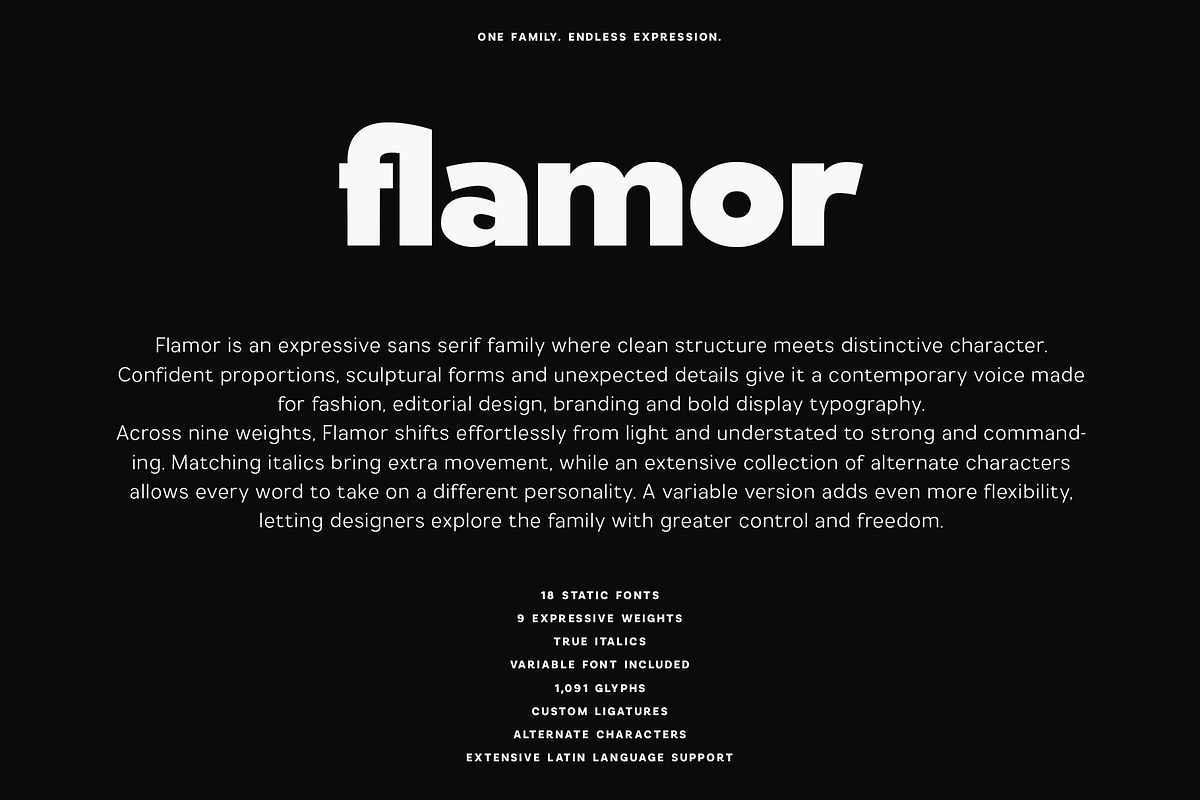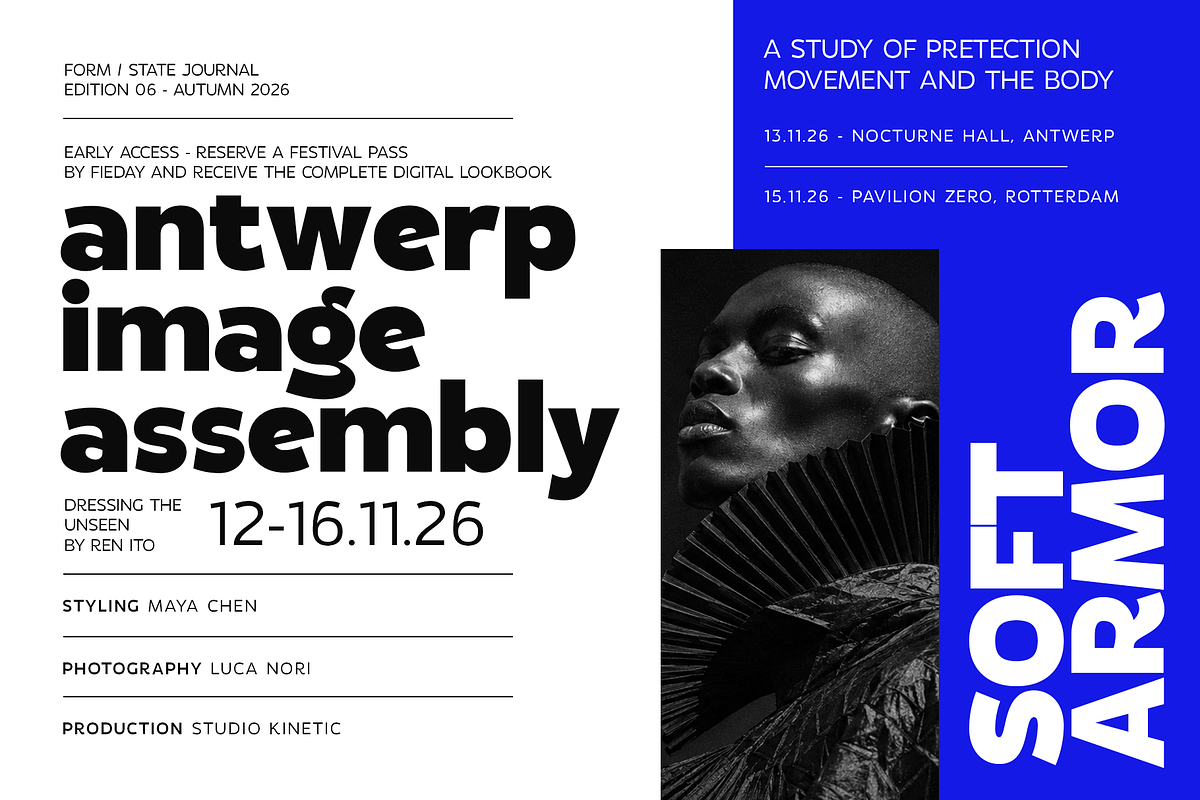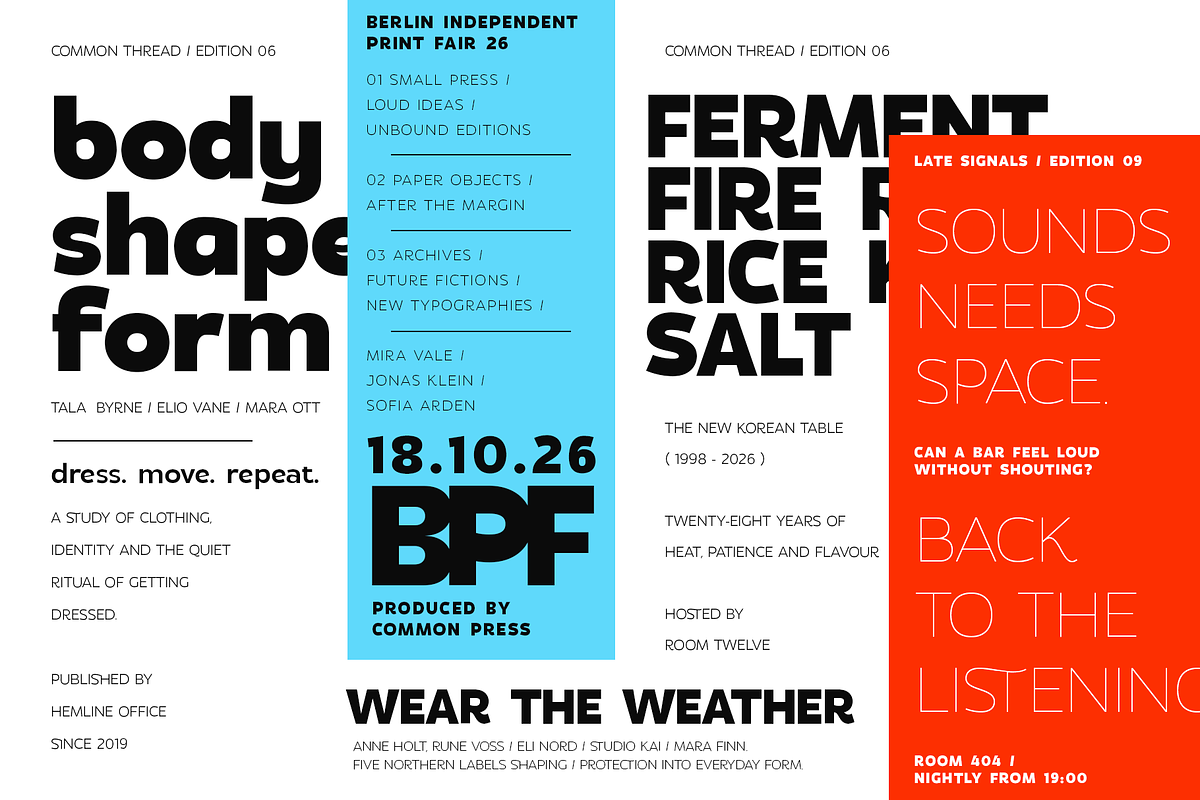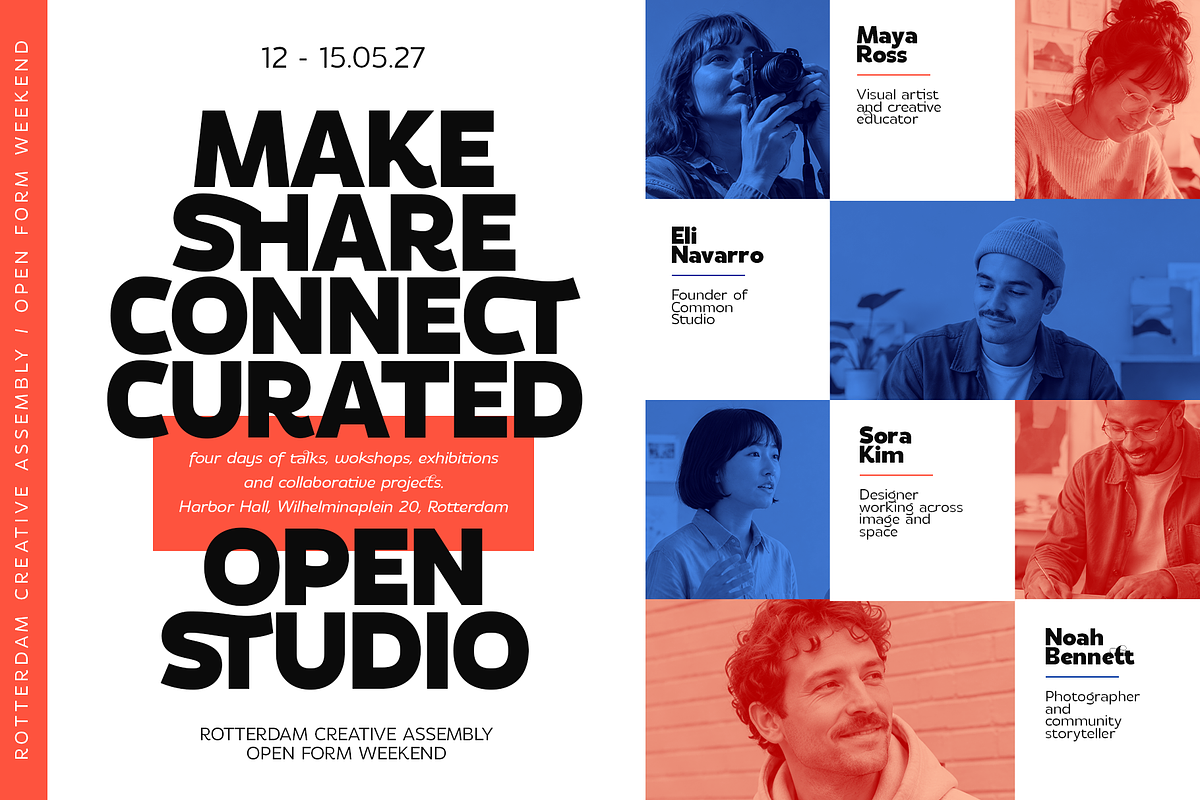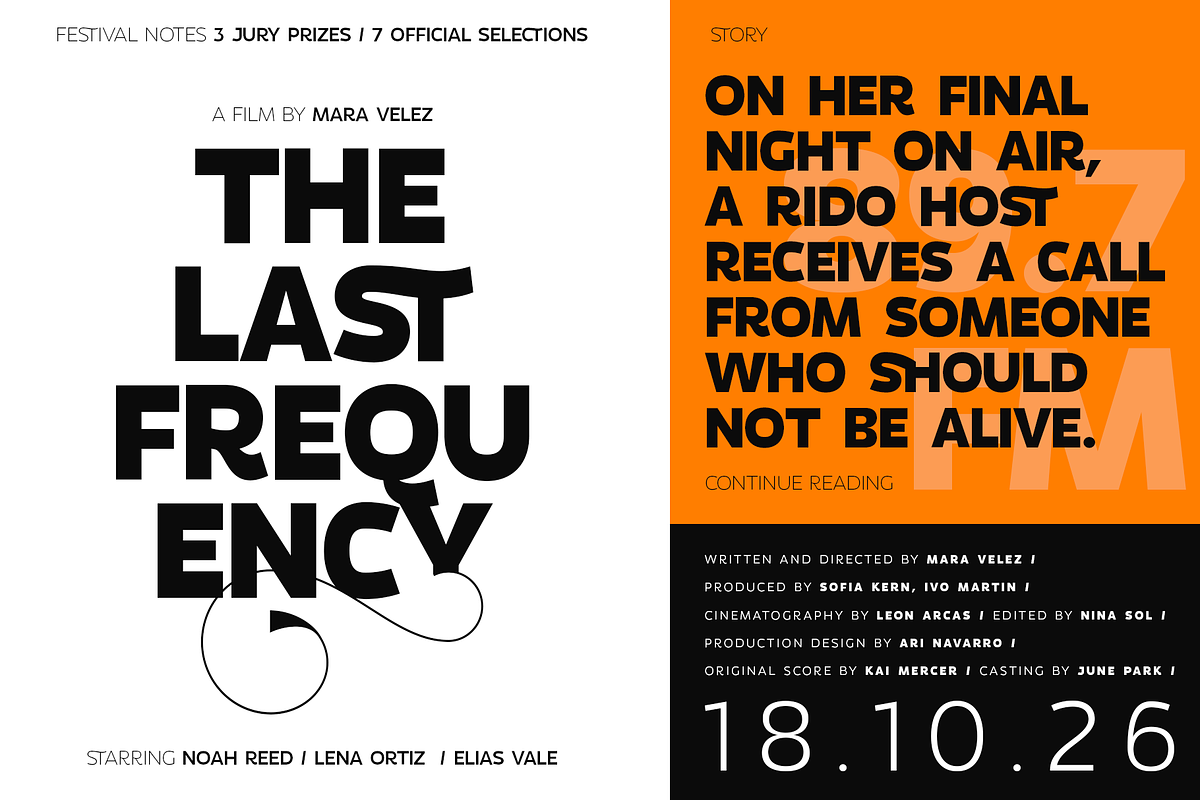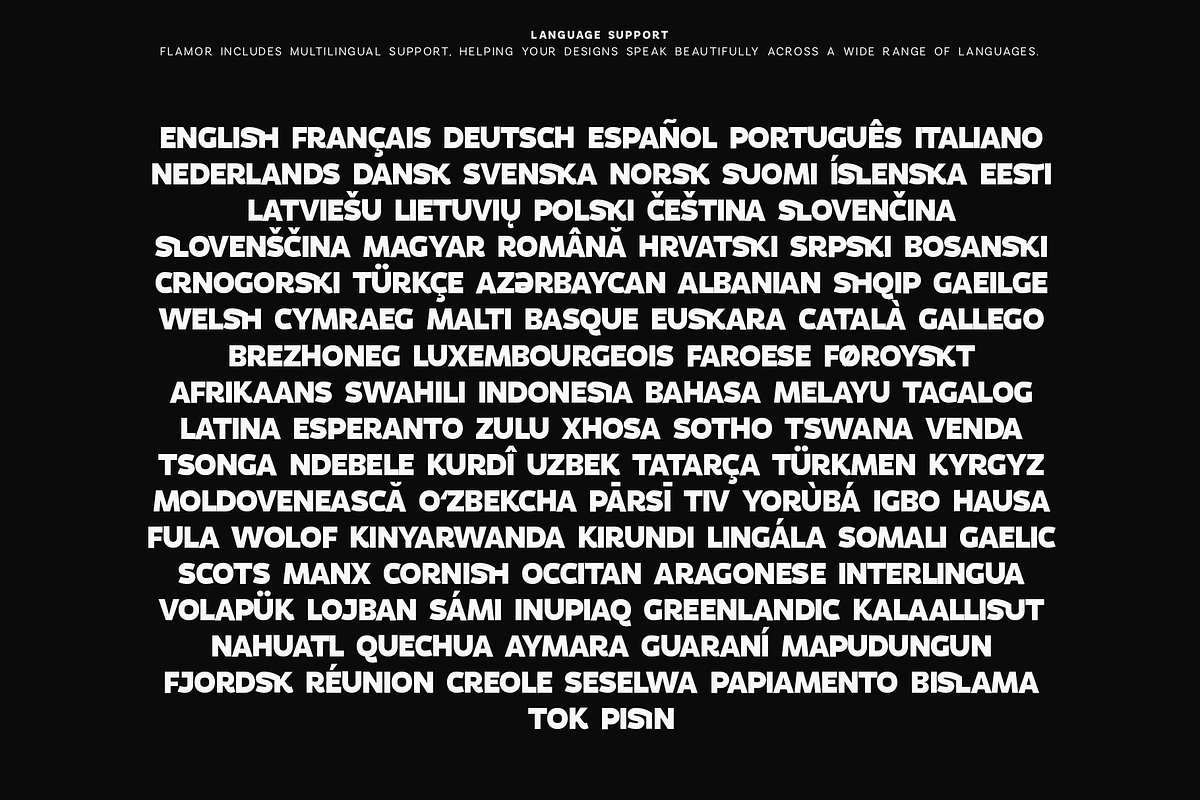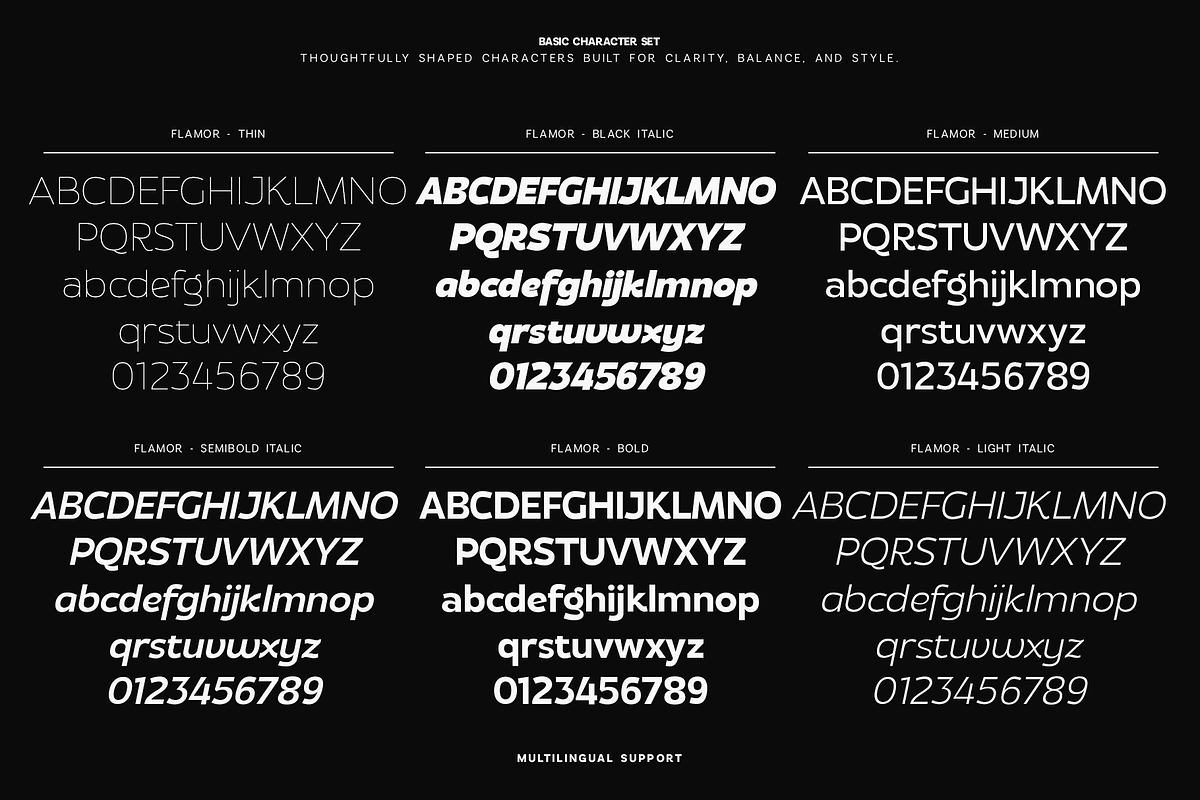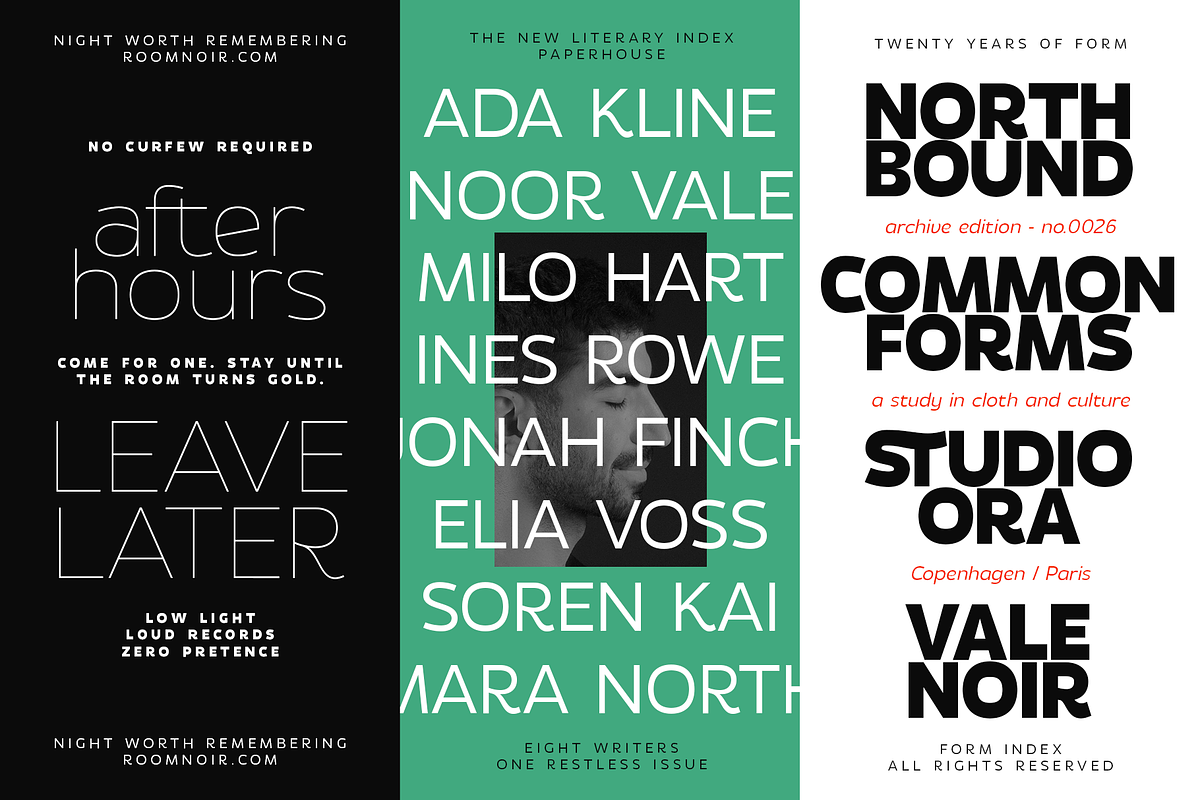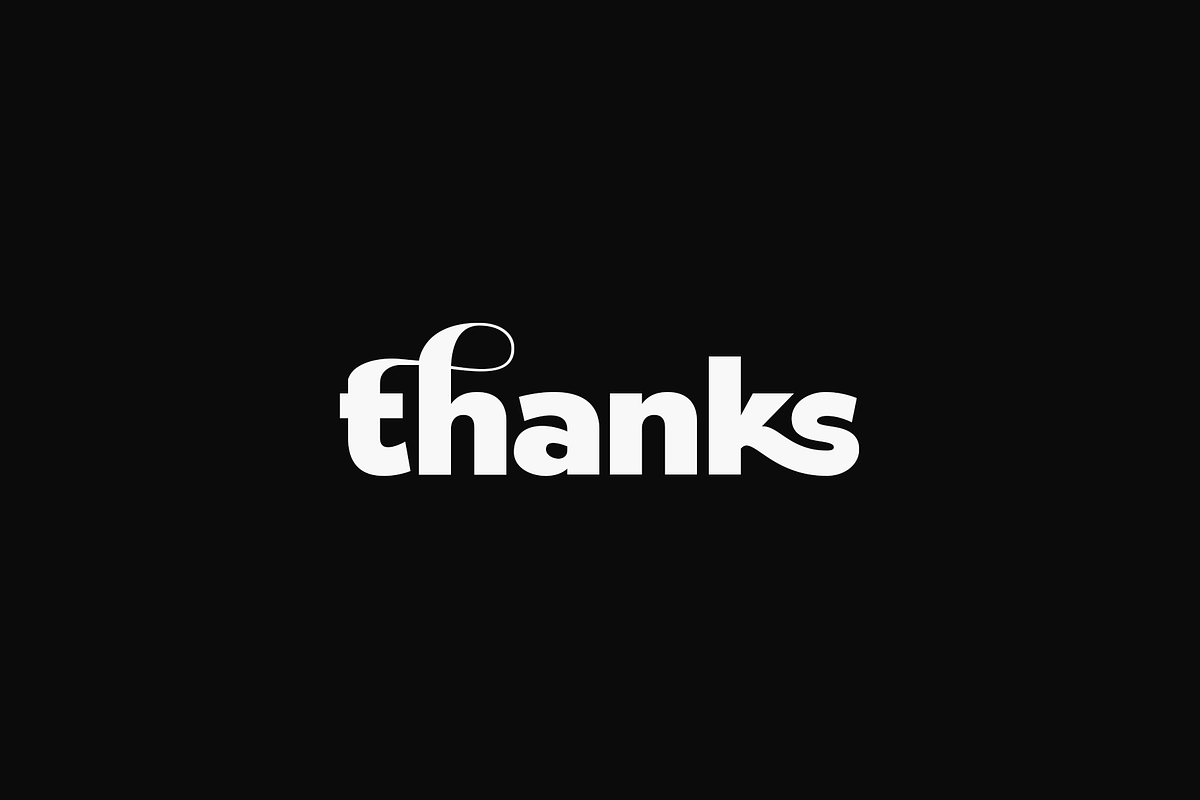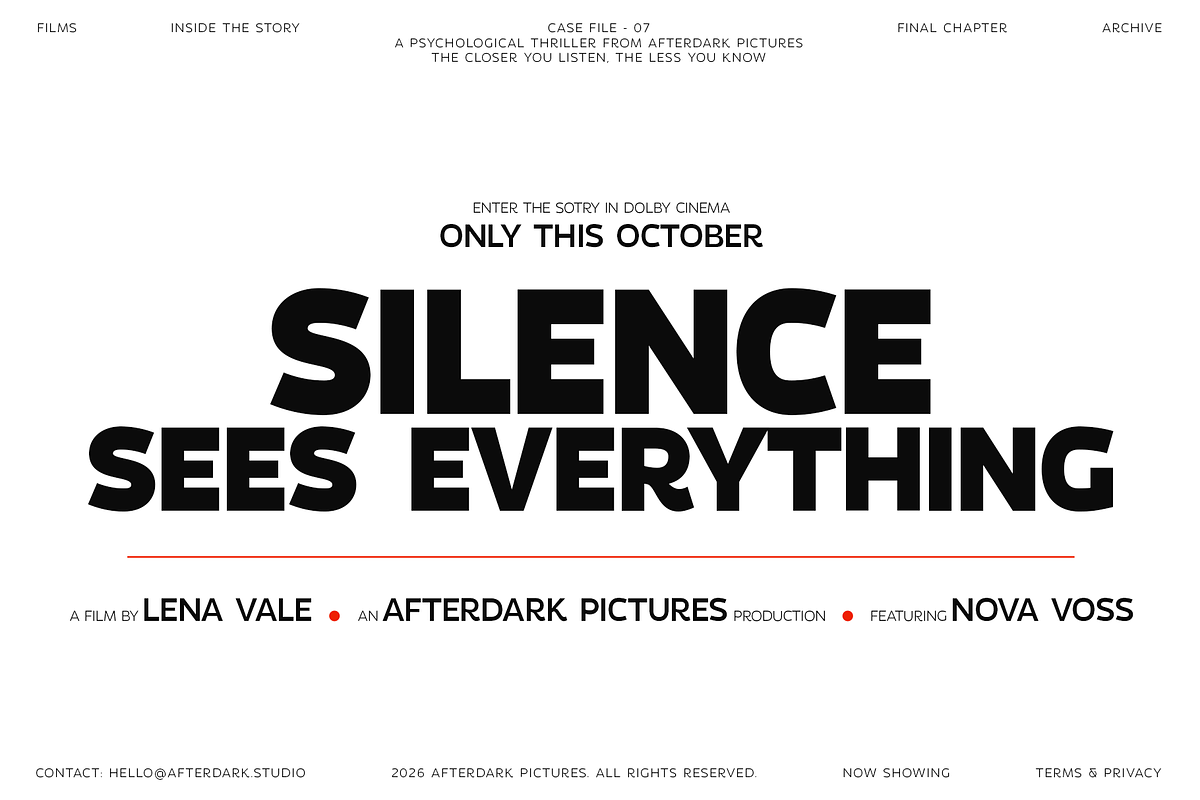
Flamor - Editorial Sans Serif Family
Flamor is an expressive sans serif font family that blends clean construction with bold, distinctive character. Its confident proportions, sculptural shapes, and unexpected details make it ideal for fashion branding, editorial layouts, magazines, logos, packaging, posters, advertising, and statement typography.
The family includes 18 static fonts across nine weights, from Thin to Black, with matching true italics. A variable font is also included, giving you flexible control across the complete weight range.
With 1,091 glyphs, custom ligatures, alternate characters, 25 custom swashes, extensive punctuation, and broad Latin language support, Flamor offers everything needed to create memorable identities and expressive typographic compositions.
From refined editorial typography to powerful oversized headlines, Flamor brings versatility, personality, and contemporary energy to every creative project.